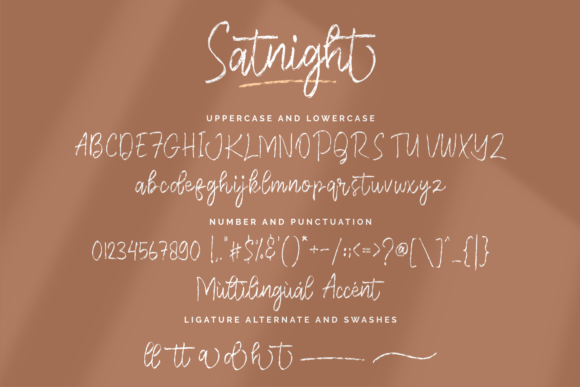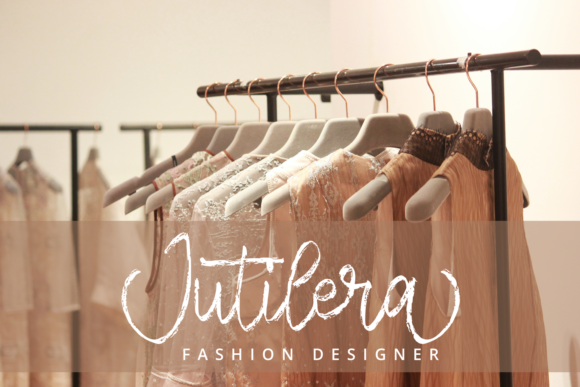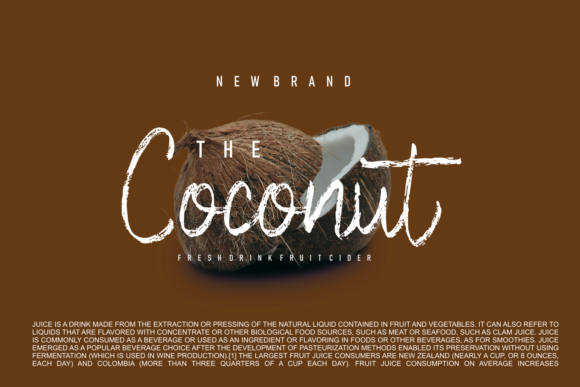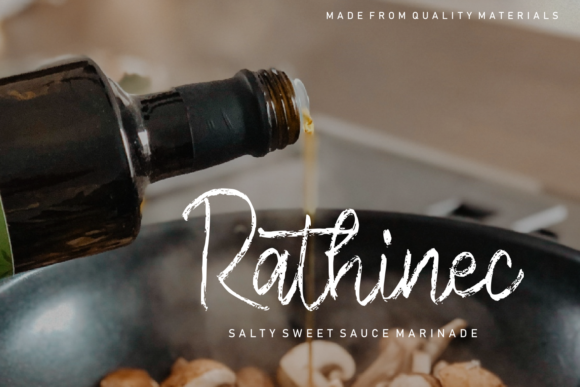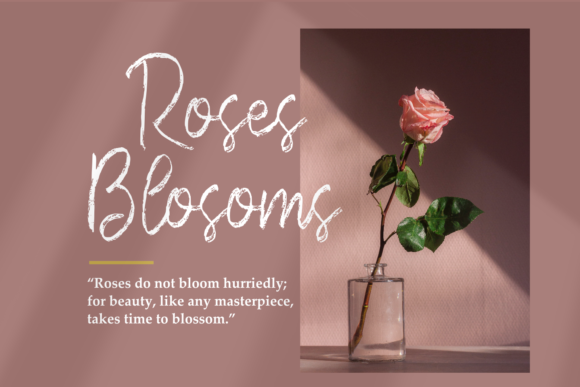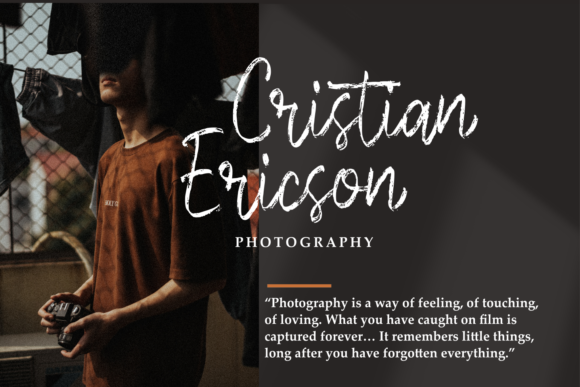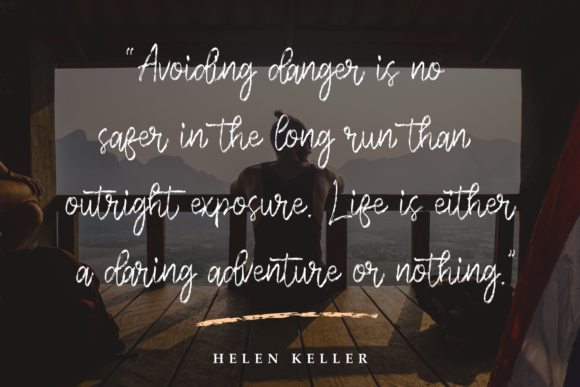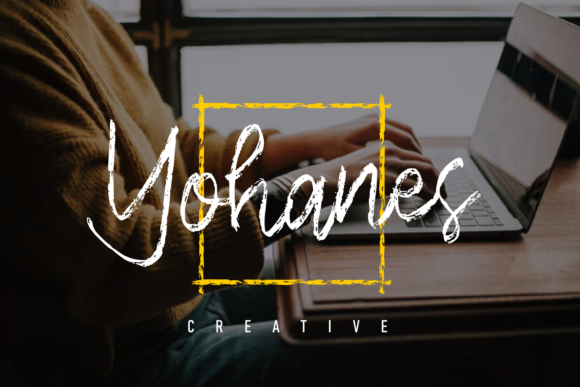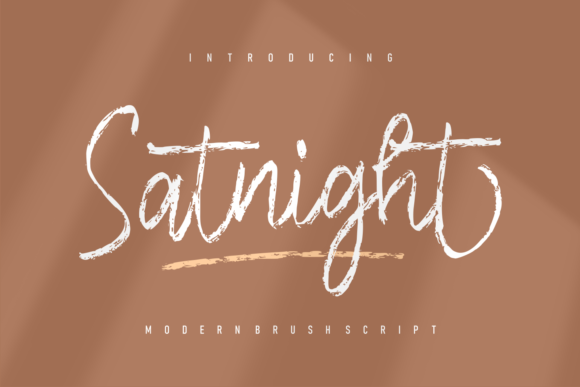
Satnight Font
About Satnight Font
Satnight is a modern and cursive handwritten font featuring timeless characters and light texture. Use it for stationery, invitations, social media posts, logos, branding, or any other project you’re working on.